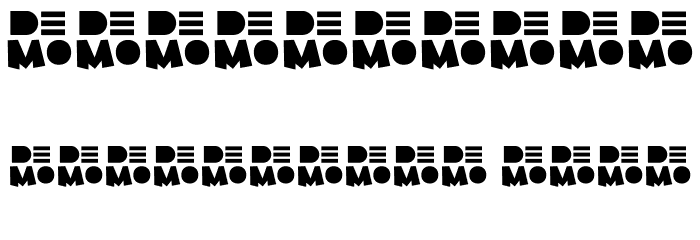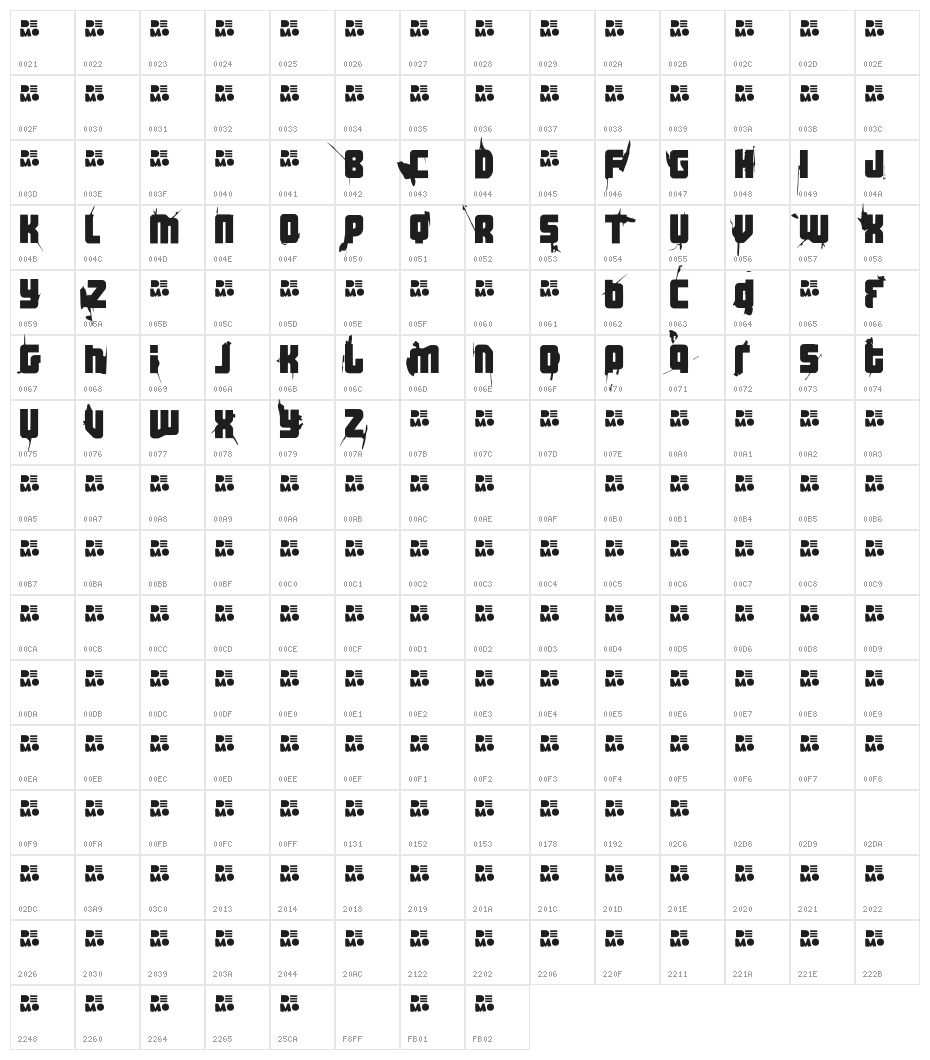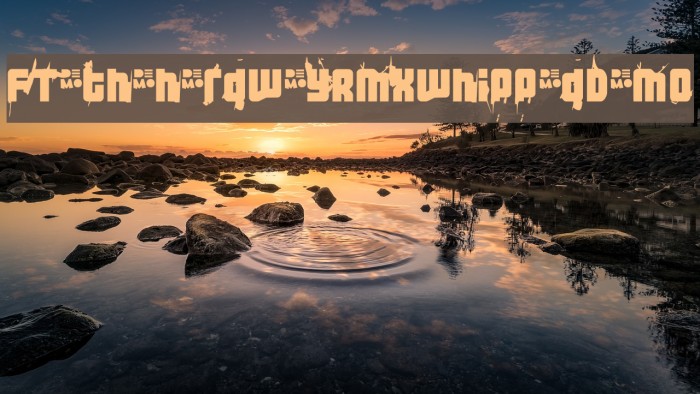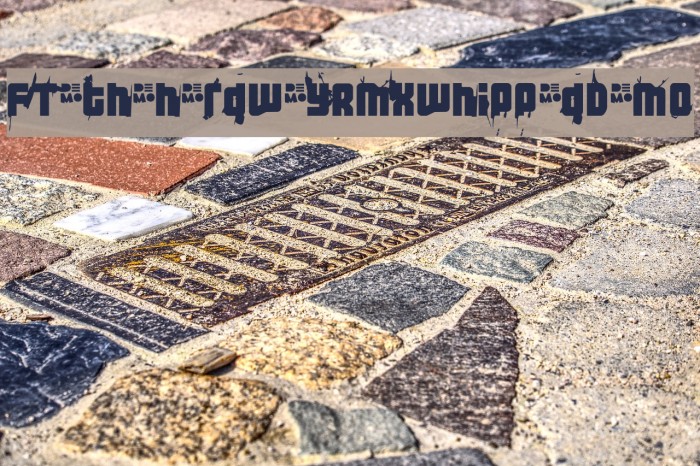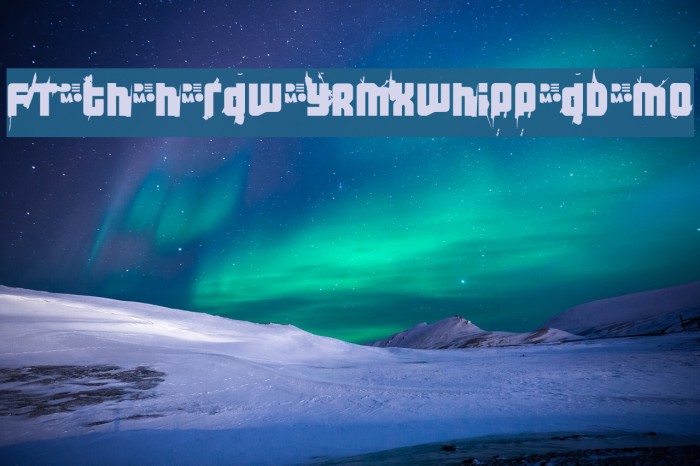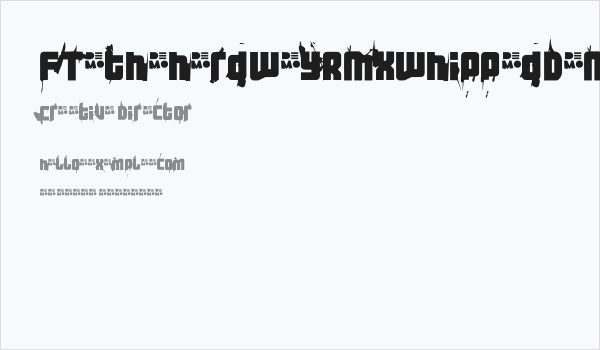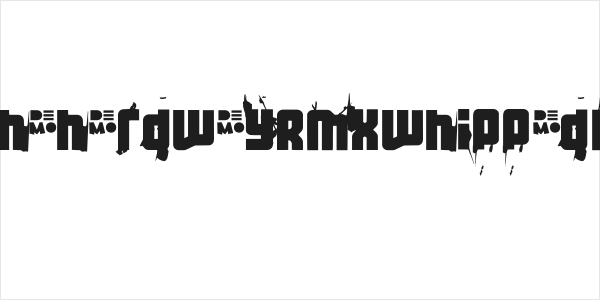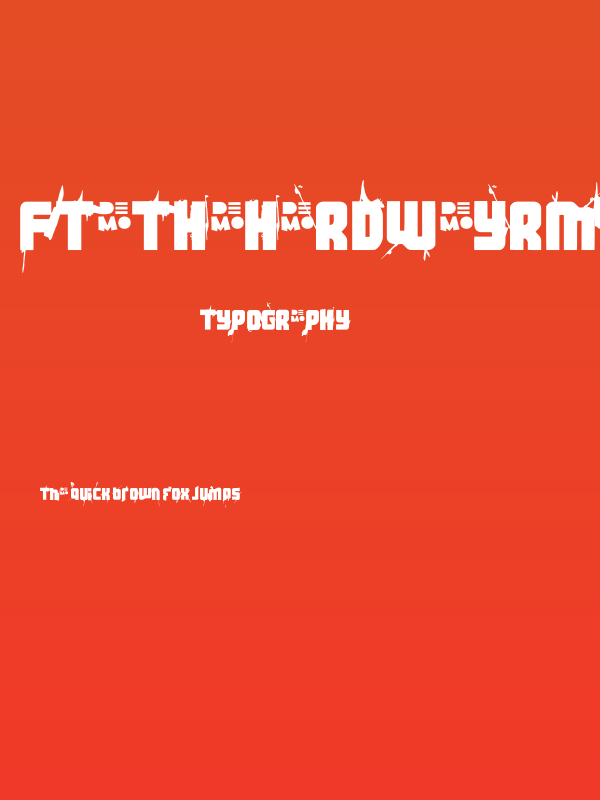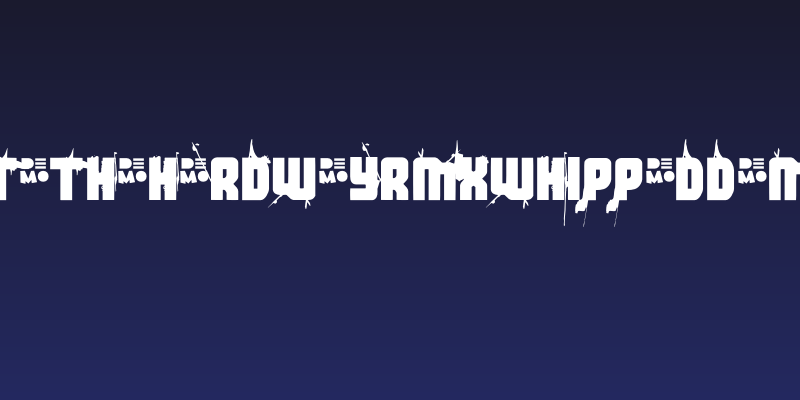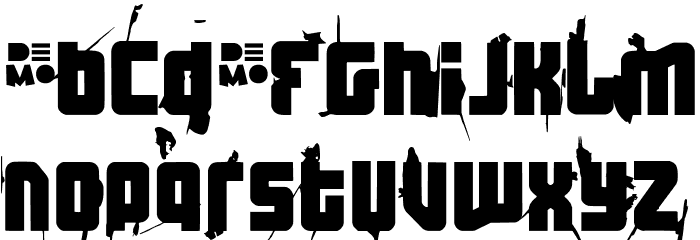
FT3thehardwayRMXwhippedDEMO Font
FT3thehardwayRMXwhippedDEMO Description
This font features a bold and aggressive style with a distressed, grunge-like appearance. The characters have a blocky, geometric structure with sharp edges and irregular splatters, giving it a raw and edgy look. The uppercase and lowercase letters maintain a consistent height, while the numbers and special characters follow the same rugged design. This font's unique style makes it stand out, ideal for projects that require a strong visual impact.
| Overall Style | Grunge, Edgy, Modern |
| Proposed Projects | Ideal for music album covers, streetwear branding, event posters, and any project needing a bold, edgy look. |